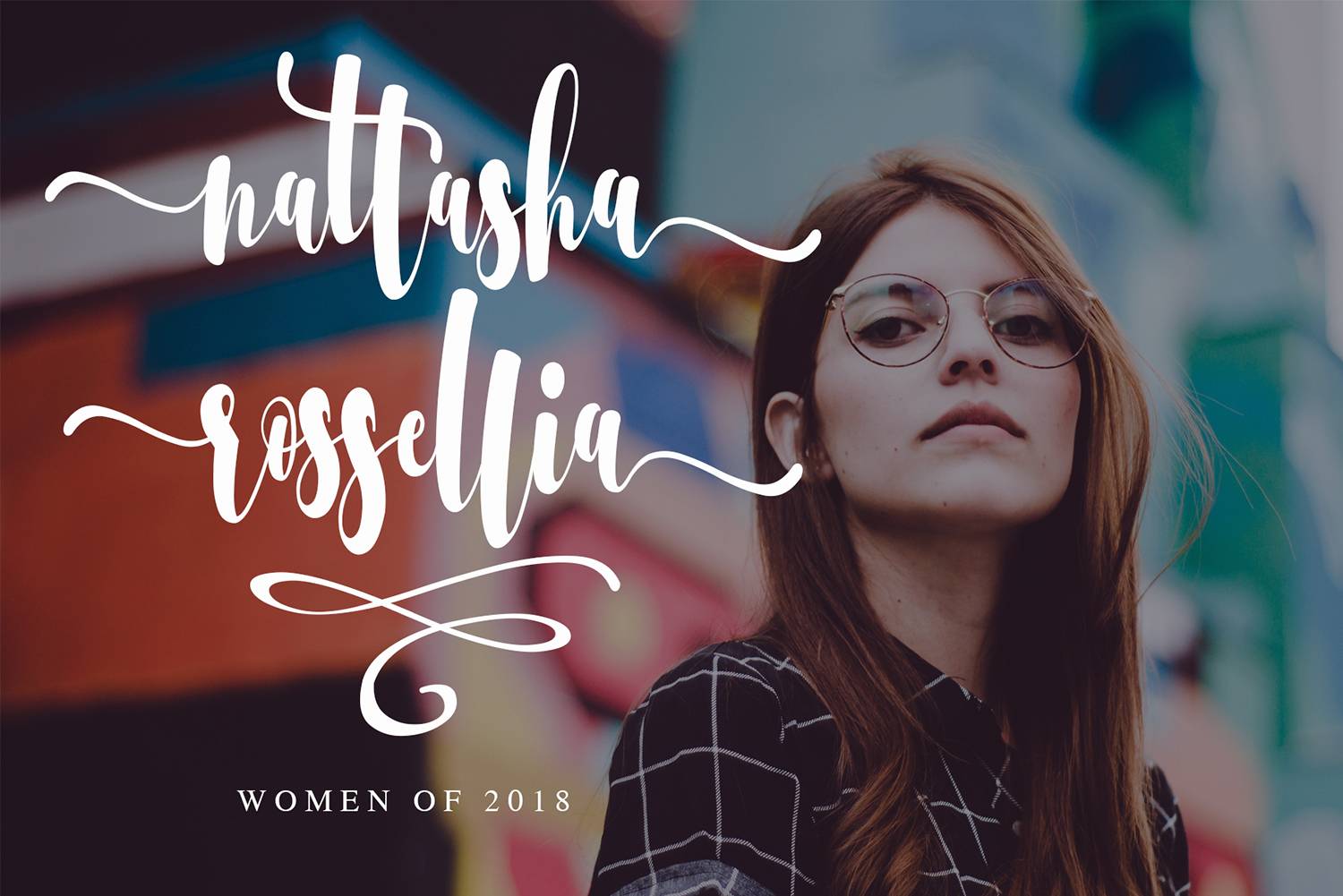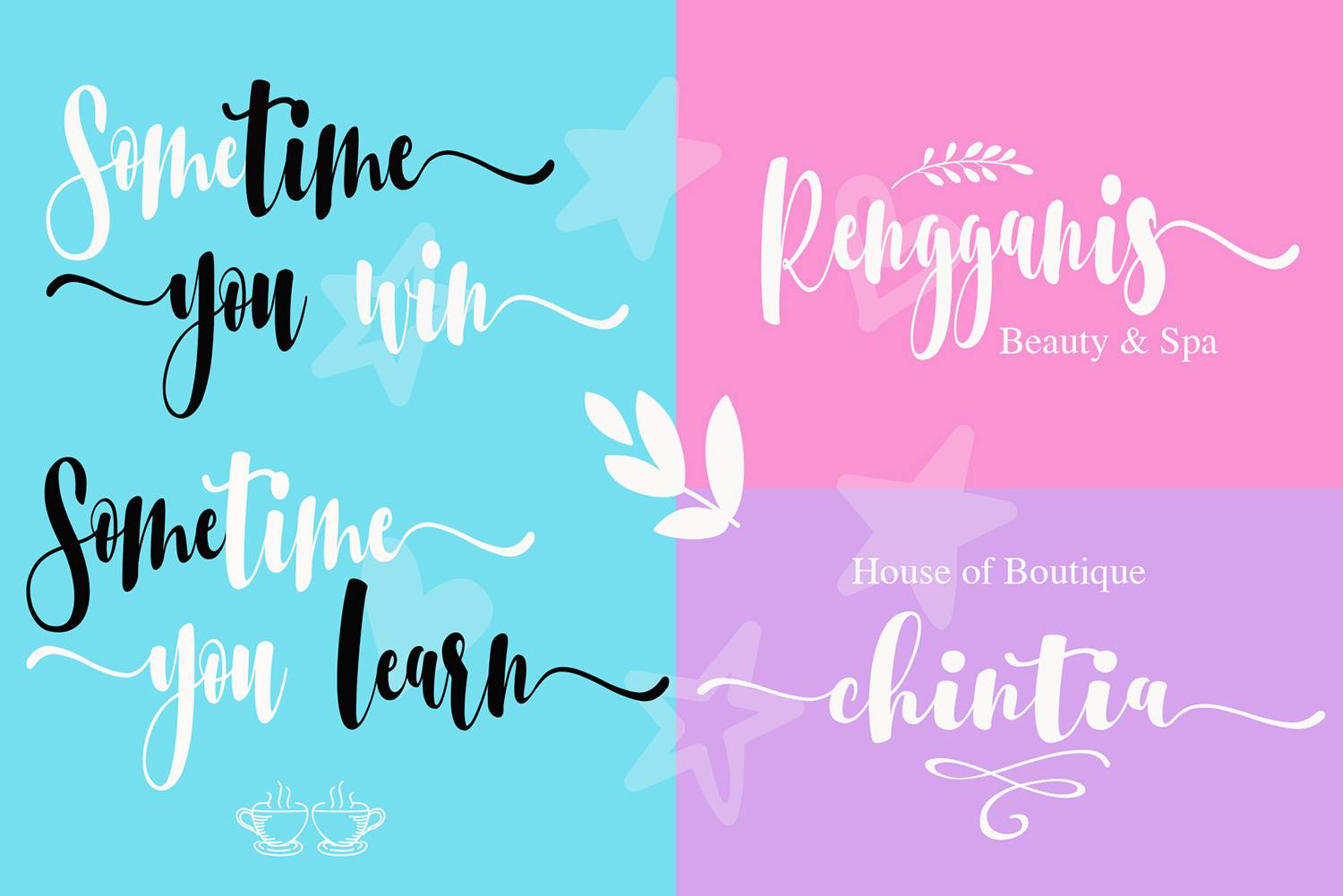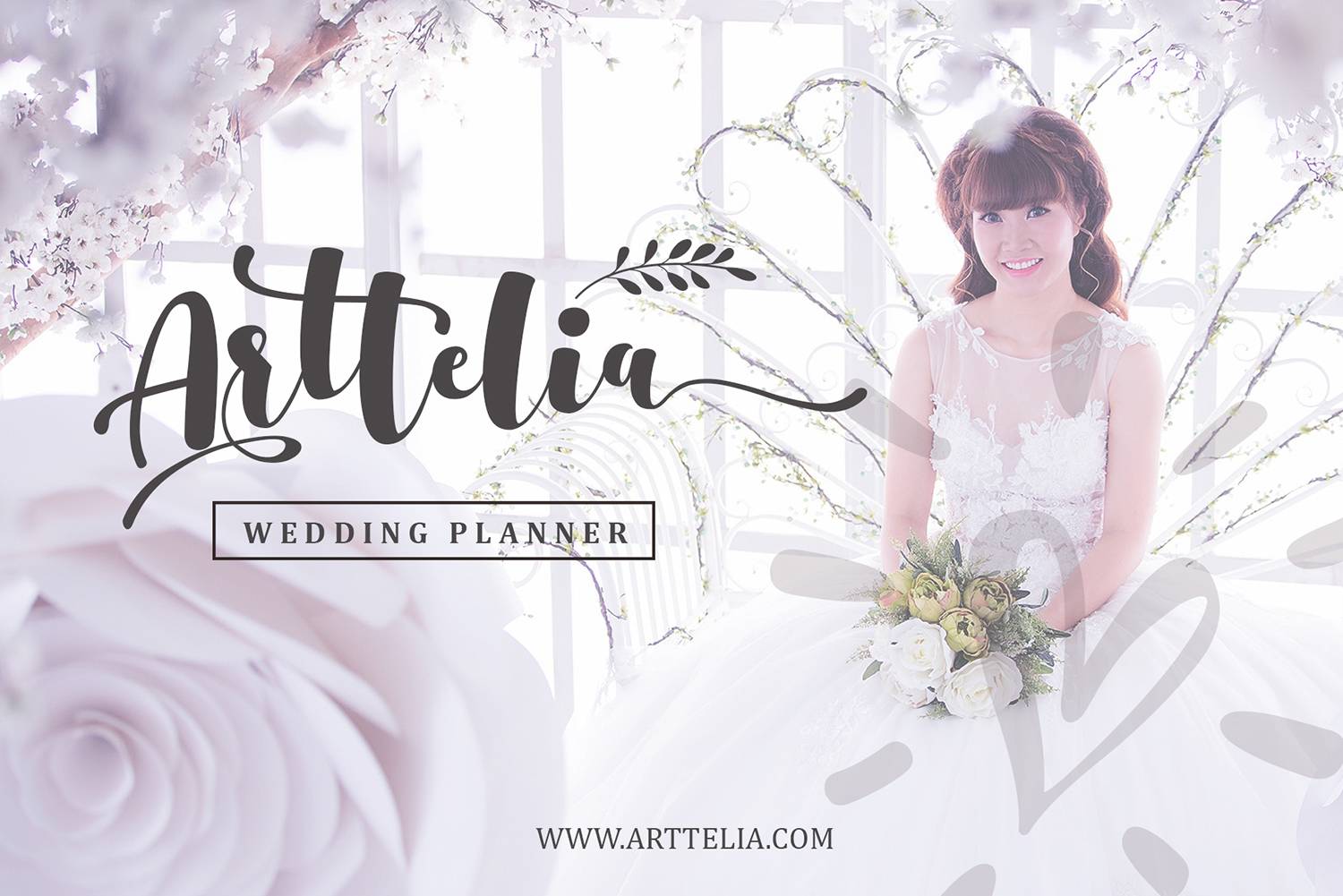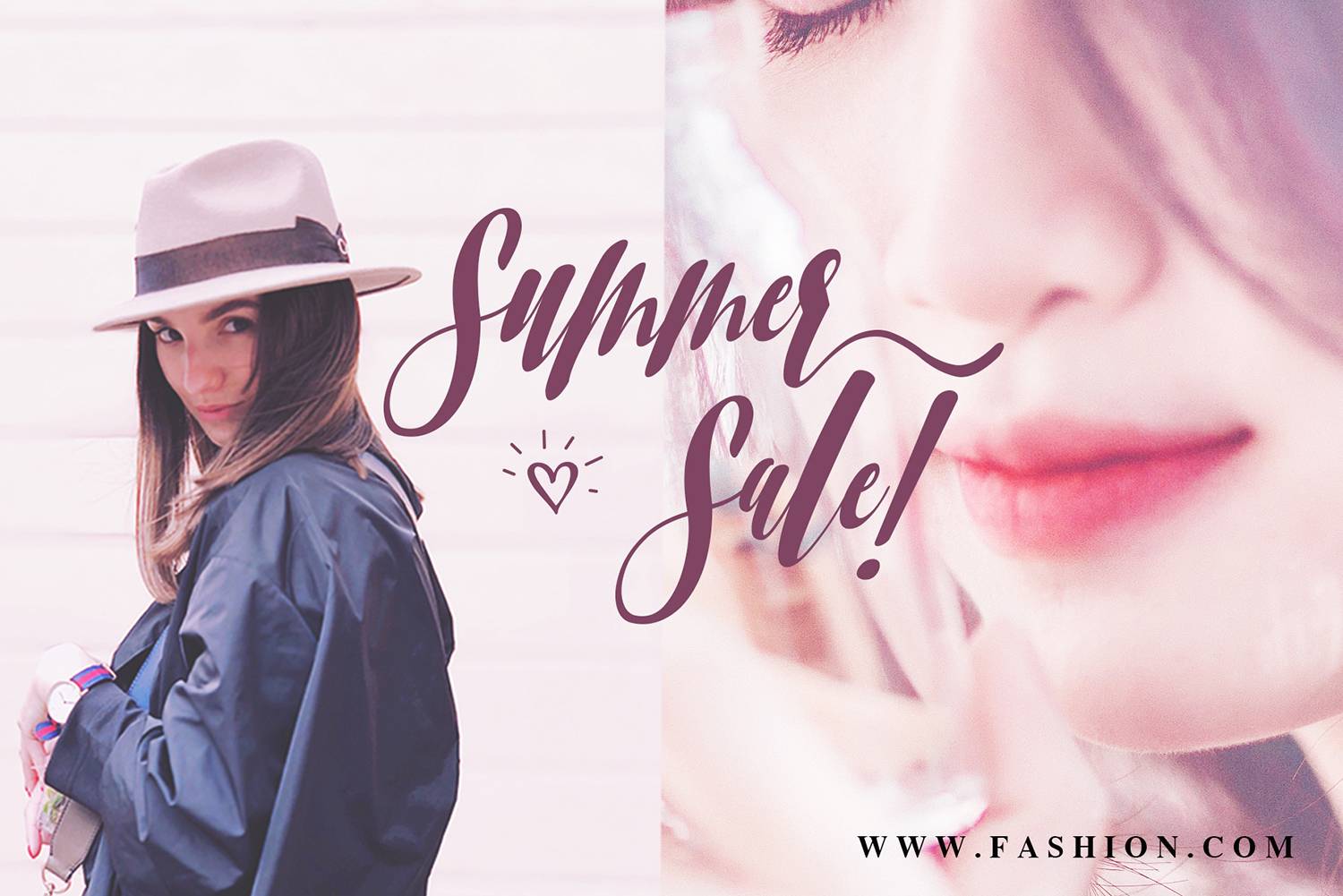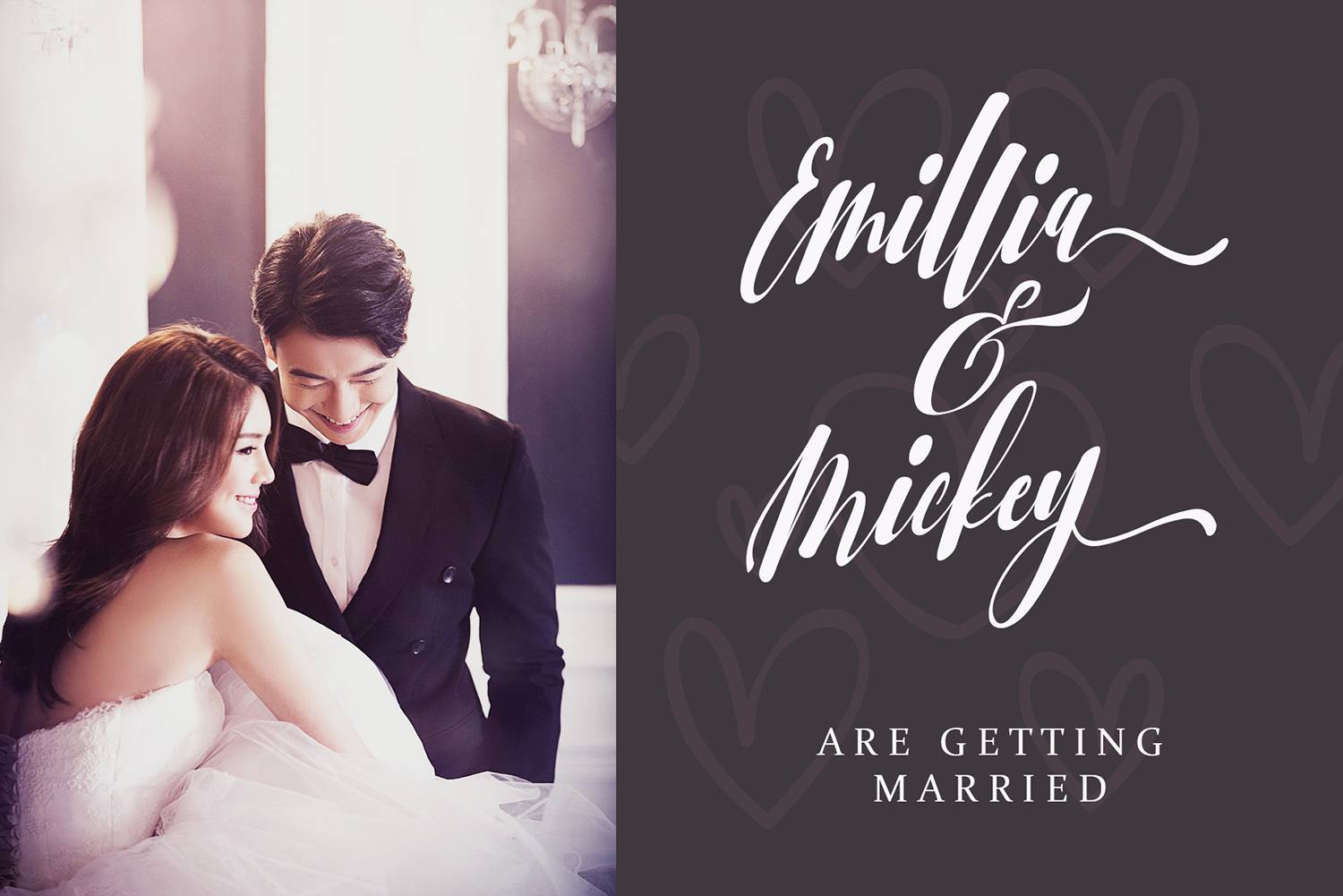
Srikonitta is an elegant, modern script font with a playful yet sophisticated touch, characterized by its smooth, flowing strokes and contrasting thick and thin lines. Its tall, narrow letterforms and delicate curves make it perfect for branding, invitations, and stylish headlines, adding a personalized, handcrafted feel to any design. This font works wonderfully for fashion, beauty, and creative projects seeking a chic and graceful aesthetic.
| Font family | Srikonitta Font |
| Languages supported | Latin, Greek, Thai, Symbols |
| Designer | Aldedesign 2018 |